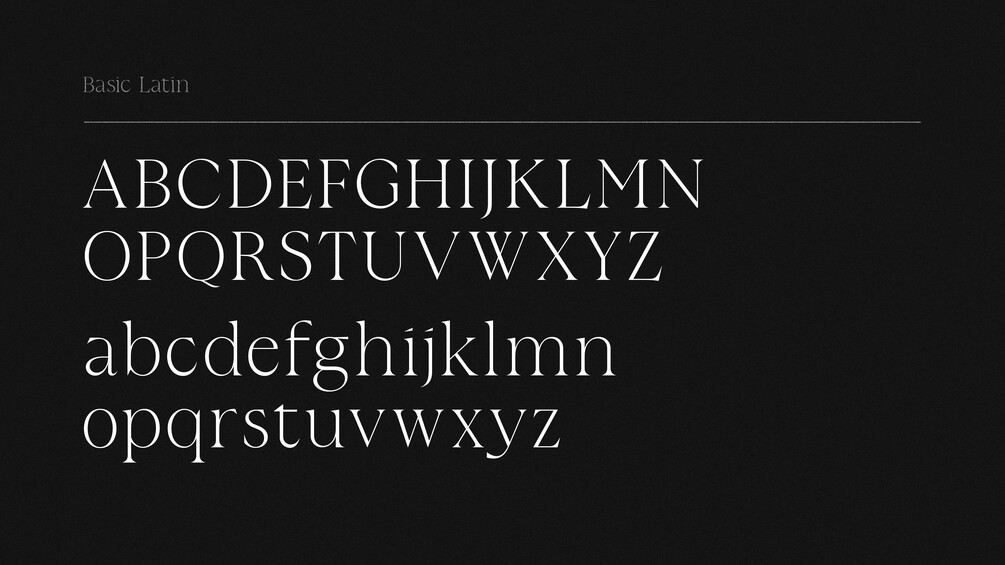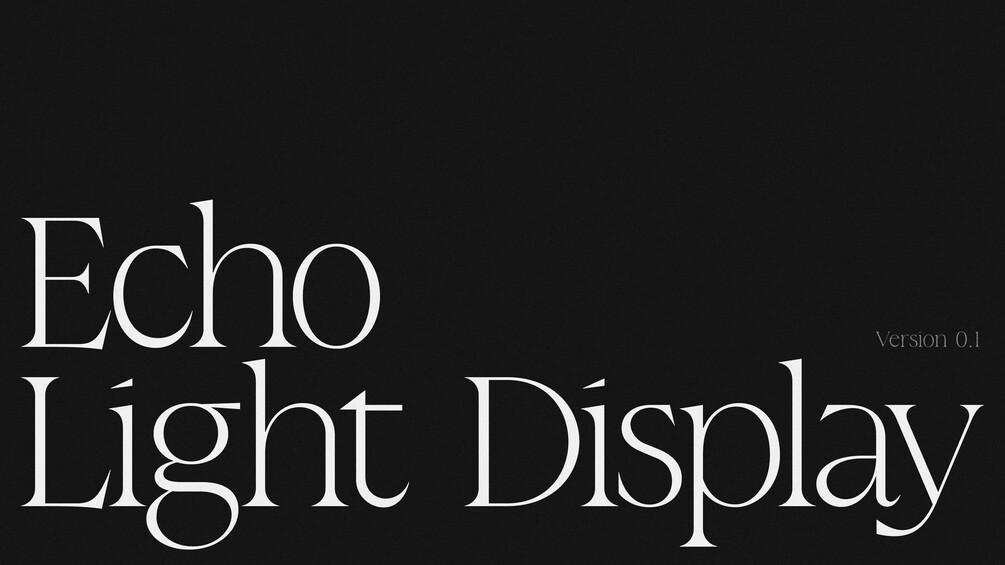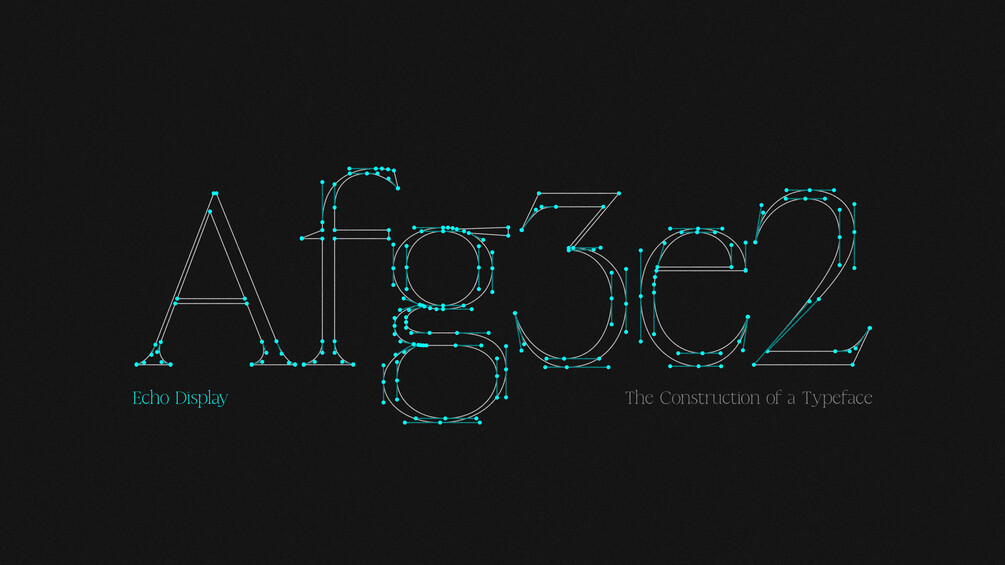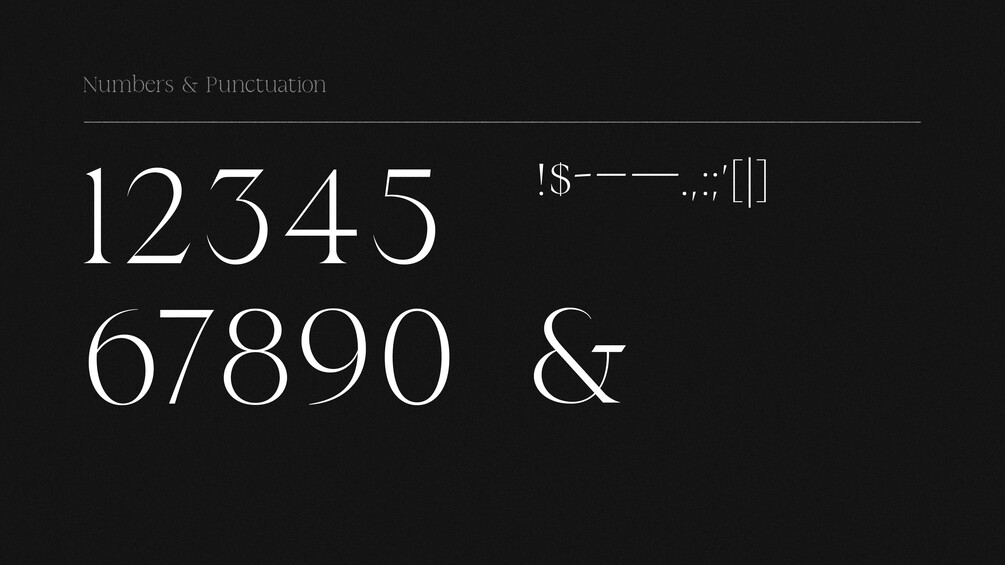
Echo Light Display
Echo is a contemporary typeface that is inspired by traditional stone-carved letterforms. Its contrasting strokes, sharp serifs, and tall x-height make Echo a versatile display typeface.